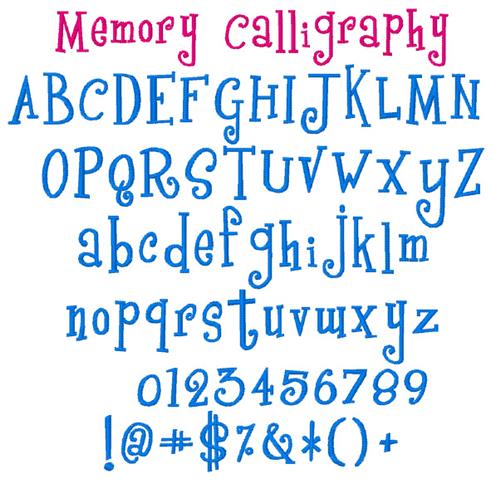
Internet Stitch is happy to present Memory Calligraphy machine embroidery font which has Playful decorative calligraphy style machine embroidery font with vibrant blue letters, perfect for embellishing cushions or fabric banners. Available in ELP format. included. If you would like to view more embroidery fonts and alphabets please search our embroidery fonts page.